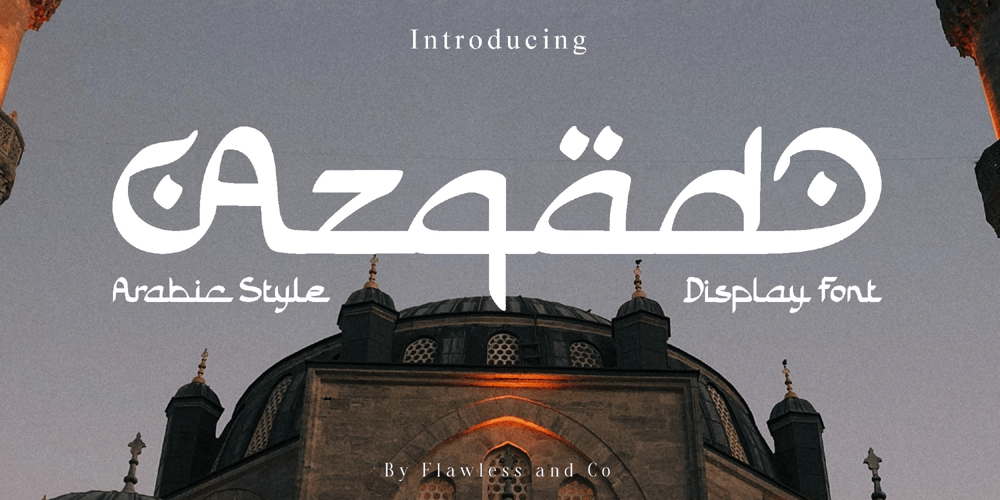
Azqad Font Family was designed by Achmad Yani and published by Flawlessandco. Azqad contains 1 styles and family package options. Azqad is an elegant Arabic-style font that combines traditional elements with a touch of modernity, with its graceful curves and intricate details.An Original typeface that suitable for any graphic designs such as branding materials, t-shirt, print, business cards, logo, poster, t-shirt, photography, quotes .etcThis font support for some multilingual. Modern Sweet Retro that contains uppercase A-Z and lowercase a-z, alternate character, numbers 0-9, and some punctuation.If you need help, just write me! Thanks so much for checking out my shop!